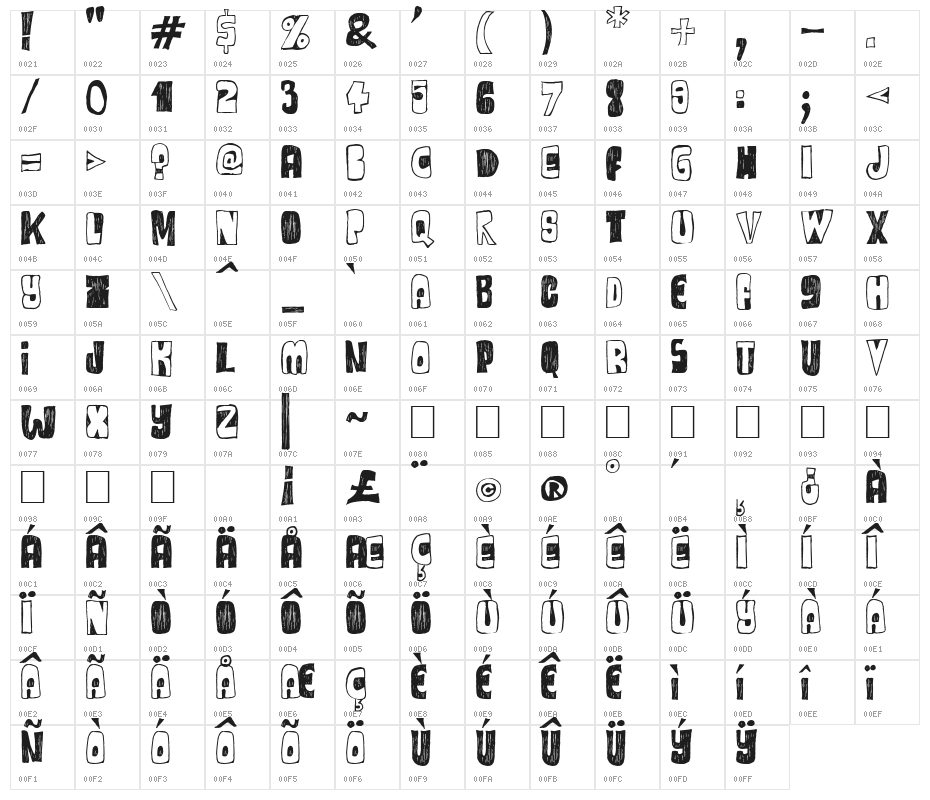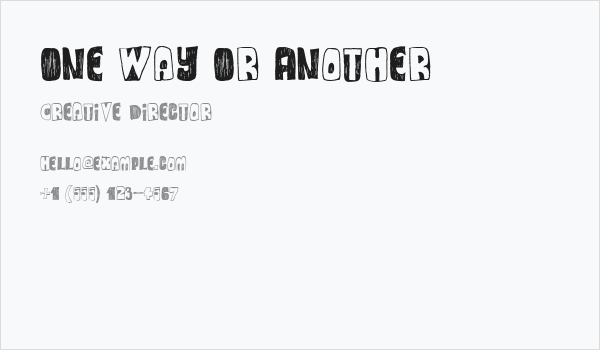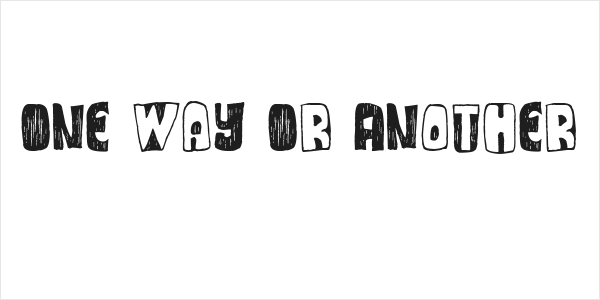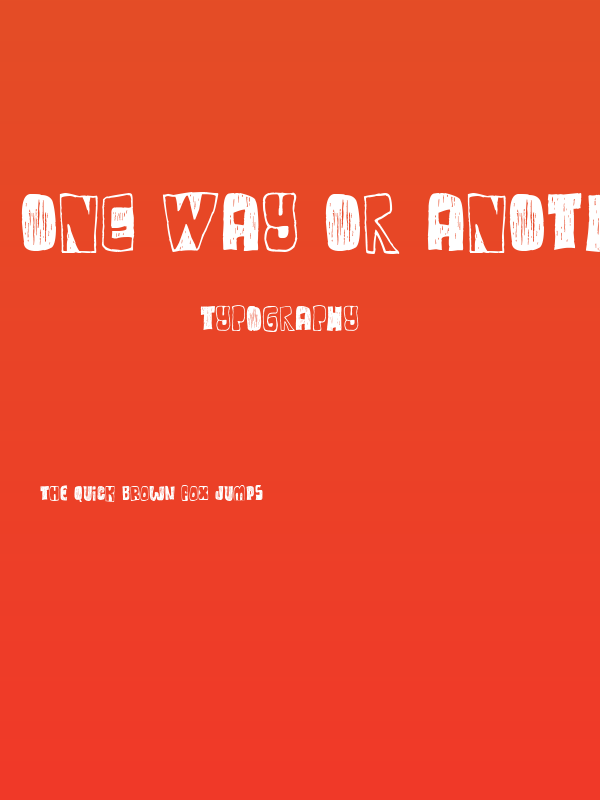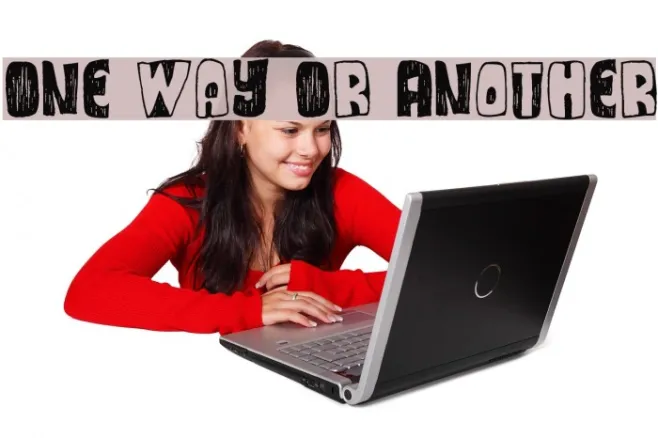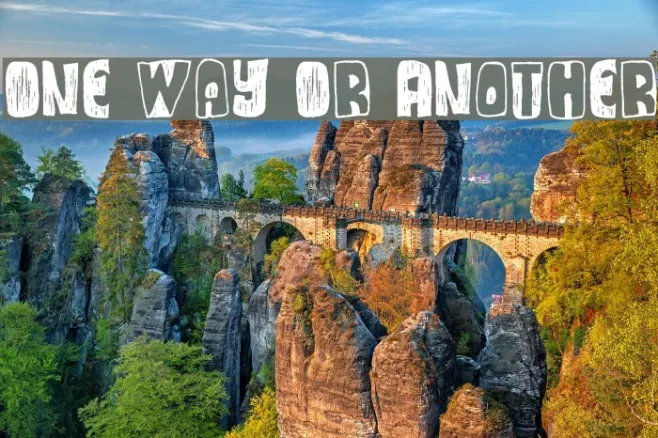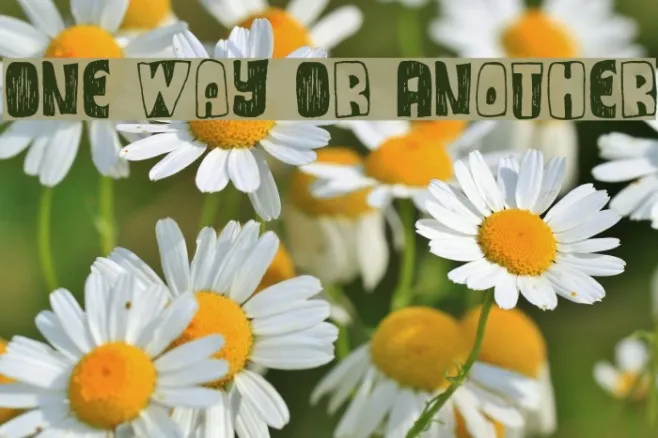
One Way Or Another Font
One Way Or Another Description
This font features a bold, hand-drawn style with a playful and slightly chaotic appearance. Each character is uniquely crafted, giving an impression of being sketched with a marker or brush. The irregular edges and varying stroke thicknesses add to its dynamic and energetic feel. The uppercase and lowercase letters maintain a consistent style, while the numbers and special characters follow suit with their quirky, artistic design. The font's overall look is informal and creative, making it ideal for projects that require a touch of individuality and flair.
| Proposed Projects | Perfect for posters, album covers, children's books, and creative branding. |